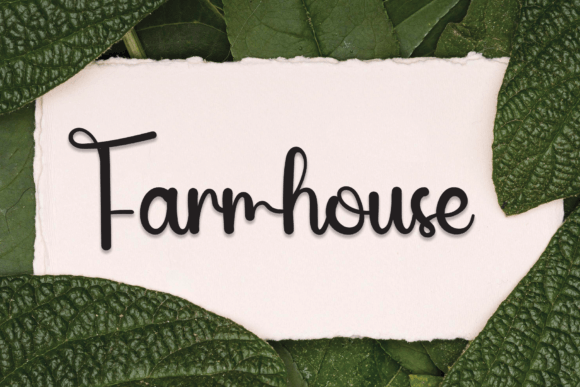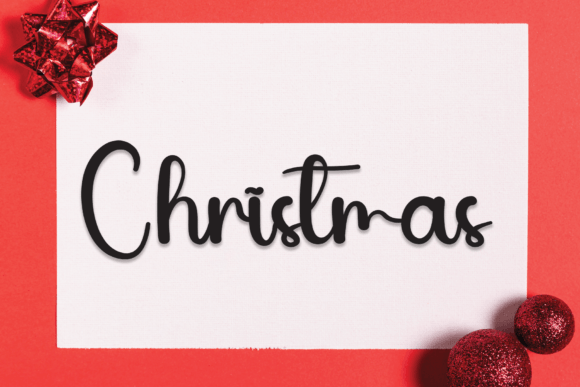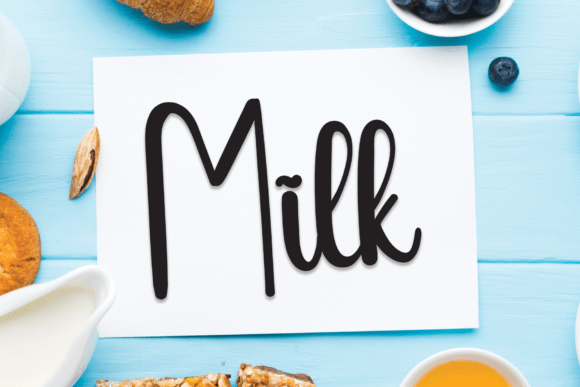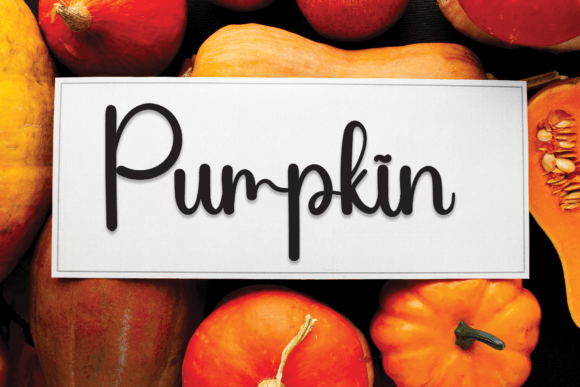
Saturday Night Font
Add a warm and approachable touch to your creative projects with the Saturday Night font. This simple and friendly handwritten script is designed to become your favorite font for many different occasions. Whether you are working on crafts, digital designs, presentations, or greeting cards, Saturday Night fits beautifully.
The Saturday Night font features clean and easy-to-read strokes that bring charm and friendliness to any design. Its versatile style allows you to use it across a wide range of creative projects. This font helps your work feel personal, natural, and inviting.
You can use the Saturday Night font for crafts, digital artwork, presentations, and card-making. Its casual yet neat appearance makes it an excellent choice for projects that want to connect with audiences through a handwritten style. This font is ideal for anyone looking for a neat, friendly script.
Despite its simple design, the Saturday Night font offers excellent readability at any size. Whether used for bold headlines or smaller text, it ensures your message stays clear and stylish.
Using the Saturday Nightfont will add a genuine and inviting character to your projects. If you want a handwritten font that is versatile and easy to use, this font is a great addition to your collection.
In summary, the Saturday Nightfont is a simple, friendly, and versatile handwritten script. Perfect for crafts, digital designs, presentations, and greeting cards, it adds warmth and personality to your creative work. Download it today and make your designs more inviting with Saturday Night.